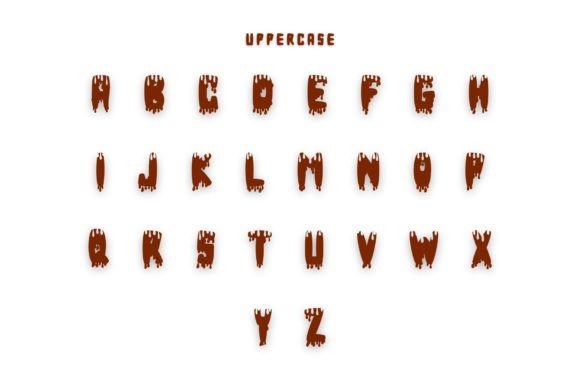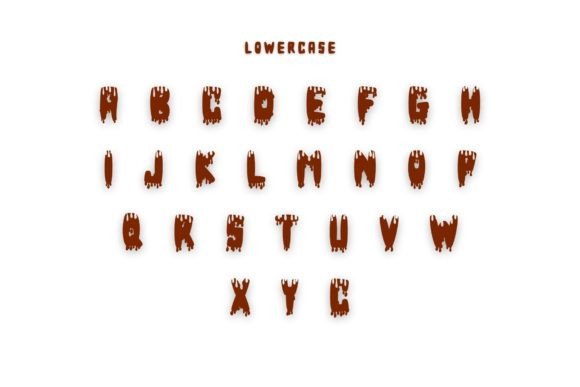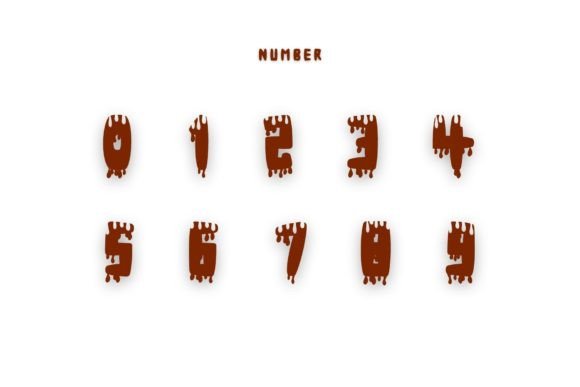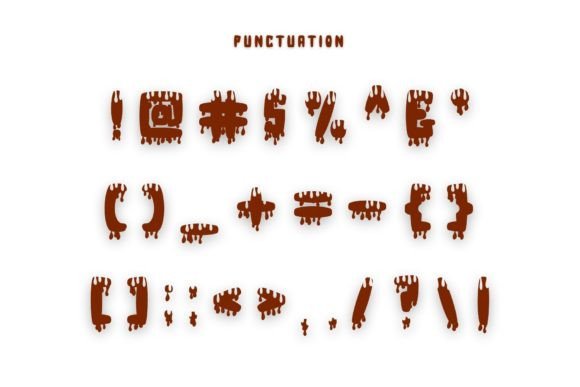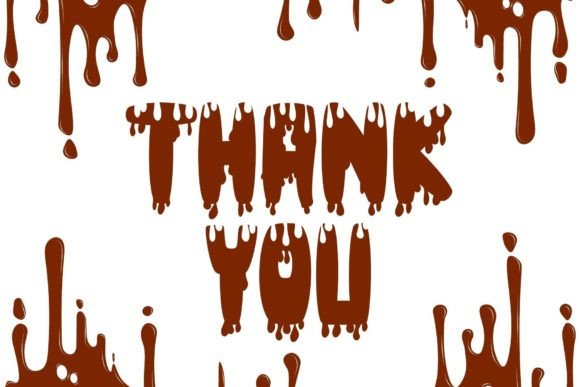
Hello Dripper Font: The Ultimate Choice for Spooky and Fun Designs
Are you looking for a font that can add a touch of playfulness and authenticity to your designs? Look no further than the Hello Dripper Font! This scary and fun decorative font is perfect for all your favorite Halloween projects, and its versatility makes it suitable for a wide range of applications, from blog posts and logos to invitations and decorations.
The Perfect Font for Halloween Projects
Hello Dripper Font is specifically designed to capture the essence of Halloween. Its unique and quirky style is sure to make your designs stand out and leave a lasting impression on your audience. Whether you’re creating spooky posters, Halloween-themed party invitations, or eerie decorations, this font is the perfect choice. Its bold and playful letters will add a touch of whimsy and fun to your designs, making them perfect for the spookiest time of the year.
Beyond Halloween: Endless Design Possibilities
While Hello Dripper Font is perfect for Halloween projects, its uses don’t have to be limited to just one holiday. This versatile font can be used for a wide range of design applications, including:
- Blog Posts: Add a touch of personality to your blog posts with Hello Dripper Font. Use it to create eye-catching headings, titles, and captions that will make your content stand out.
- Logos and Branding: Create a unique and memorable brand identity with Hello Dripper Font. Its playful and quirky style makes it perfect for businesses that want to stand out and make a statement.
- Ads and Marketing Materials: Use Hello Dripper Font to create attention-grabbing ads and marketing materials that will capture your audience’s attention.
- Invitations and Greeting Cards: Add a touch of personality to your invitations and greeting cards with Hello Dripper Font. Its playful style makes it perfect for birthdays, holidays, and other special occasions.
- Planners and Photo Albums: Use Hello Dripper Font to add a touch of whimsy and fun to your planners and photo albums.
- Decorations: Create spooky and fun decorations for your home or office with Hello Dripper Font. Use it to create signs, banners, and other decorative items that will add a touch of personality to your space.
Why Choose Hello Dripper Font?
So why choose Hello Dripper Font for your design projects? Here are just a few reasons:
- Unique and Quirky Style: Hello Dripper Font has a unique and quirky style that will make your designs stand out.
- Playful and Authentic: This font embodies playfulness and authenticity, making it perfect for designers who want to add a touch of personality to their designs.
- Versatile: Hello Dripper Font can be used for a wide range of design applications, from blog posts and logos to invitations and decorations.
Tips for Using Hello Dripper Font
Here are a few tips for using Hello Dripper Font in your design projects:
- Experiment with Different Sizes: Try out different font sizes to see what works best for your design.
- Pair with Other Fonts: Hello Dripper Font pairs well with other fonts, so don’t be afraid to experiment with different combinations.
- Use it Sparingly: While Hello Dripper Font is fun and playful, it can be overwhelming if used too much. Use it sparingly to add a touch of personality to your designs.
Hello Dripper Font is a scary and fun decorative font that is perfect for all your favorite Halloween projects and beyond. Its unique and quirky style makes it a great choice for designers who want to add a touch of playfulness and authenticity to their designs. With its versatility and ease of use, Hello Dripper Font is a must-have for any designer or crafter looking to add a little something extra to their projects.